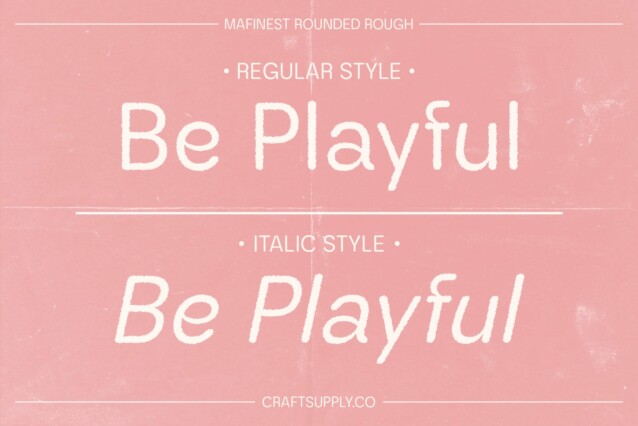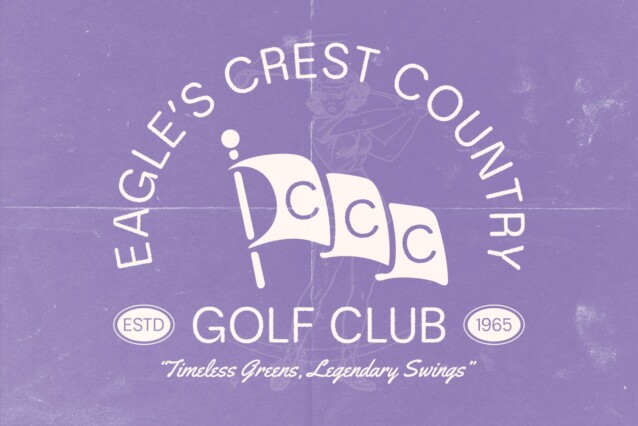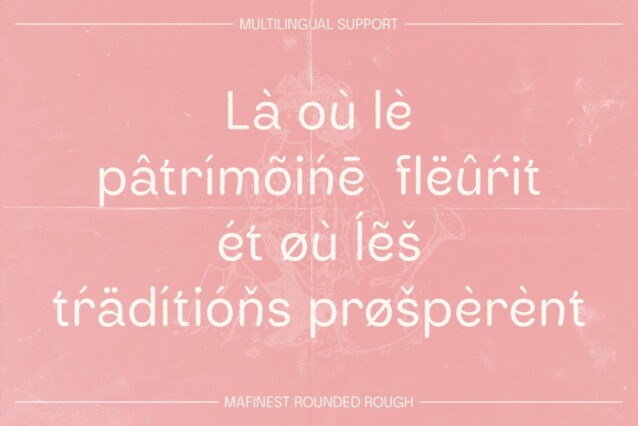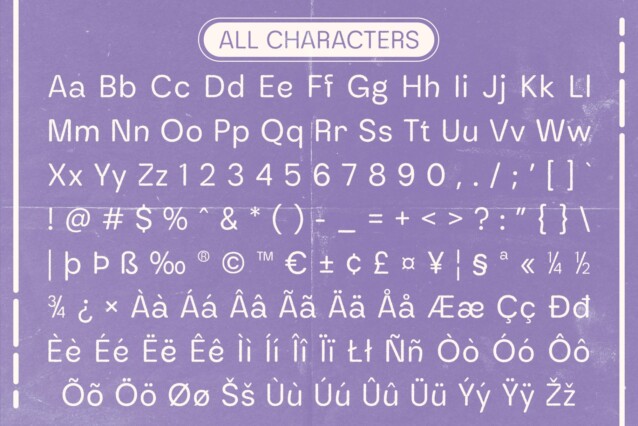
Mafinest Rounded Rough Font
Mafinest Rounded Rough Font is a modern sans-serif font that seamlessly combines grotesque and rounded shapes with a distinctive rough texture. The grotesque form provides a clean, functional look, characterized by its minimalist design and straightforward lines. Rounded corners add a layer of softness and warmth, creating a more approachable and friendly appearance. The rough texture introduces a unique dimension and character, enhancing the font’s bold and artistic edge.